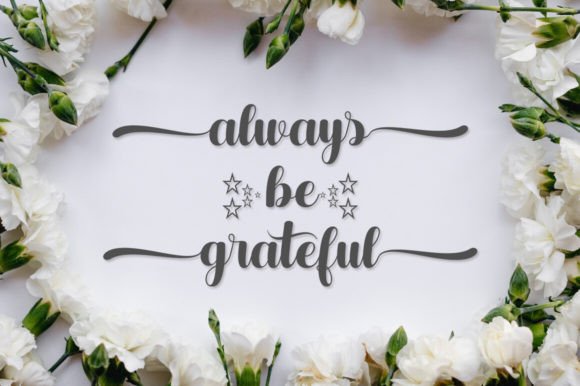
Bintang Font
Bintang feels incredibly elegant and flowing. It looks stunning on wedding invitations, thank you cards, quotes, greeting cards, logos, business cards and every other design which needs a handwritten touch. It features a varying baseline, smooth lines, gorgeous glyphs and stunning alternates. so it can make your product look elegant and attractive, and also Multilingual support!!!